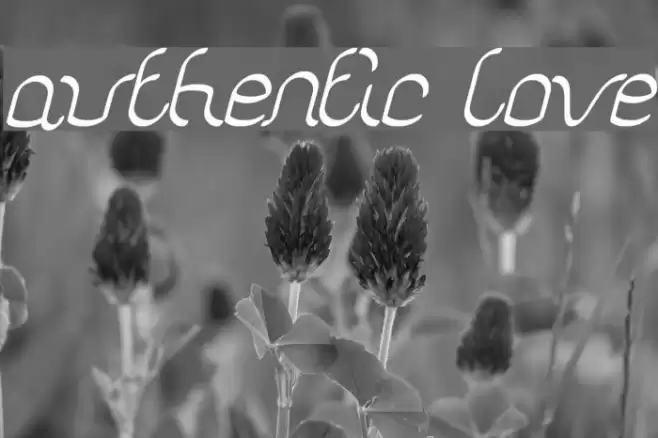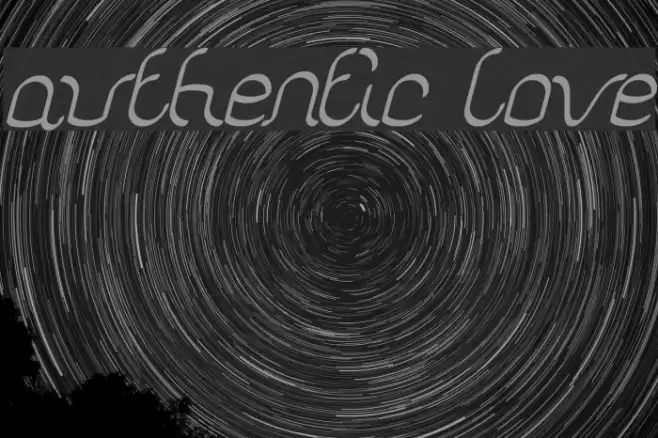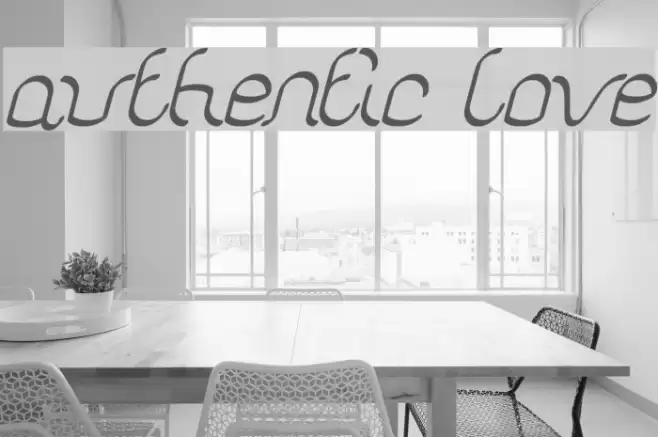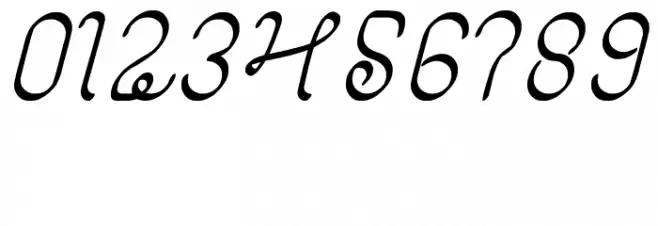
authentic love Font
authentic love Description
This font features a unique and artistic script style with a flowing, cursive appearance. The letters are interconnected, giving it a handwritten feel, yet maintaining a consistent and elegant form. The uppercase letters exhibit a playful loop and curve, while the lowercase letters are more restrained but still maintain the fluidity of the script. Numbers follow the same style, with distinctive curves and loops that add to the overall charm. The special characters are designed to blend seamlessly with the rest of the font, ensuring a cohesive look across all text elements.
A flowing, cursive script font with interconnected letters and artistic flair from Uncategorized fonts.
- Proposed Projects: Ideal for wedding invitations, greeting cards, personal branding, and artistic projects that require a touch of elegance and personality.
- Use Case: Logos, Invitations, Artistic projects